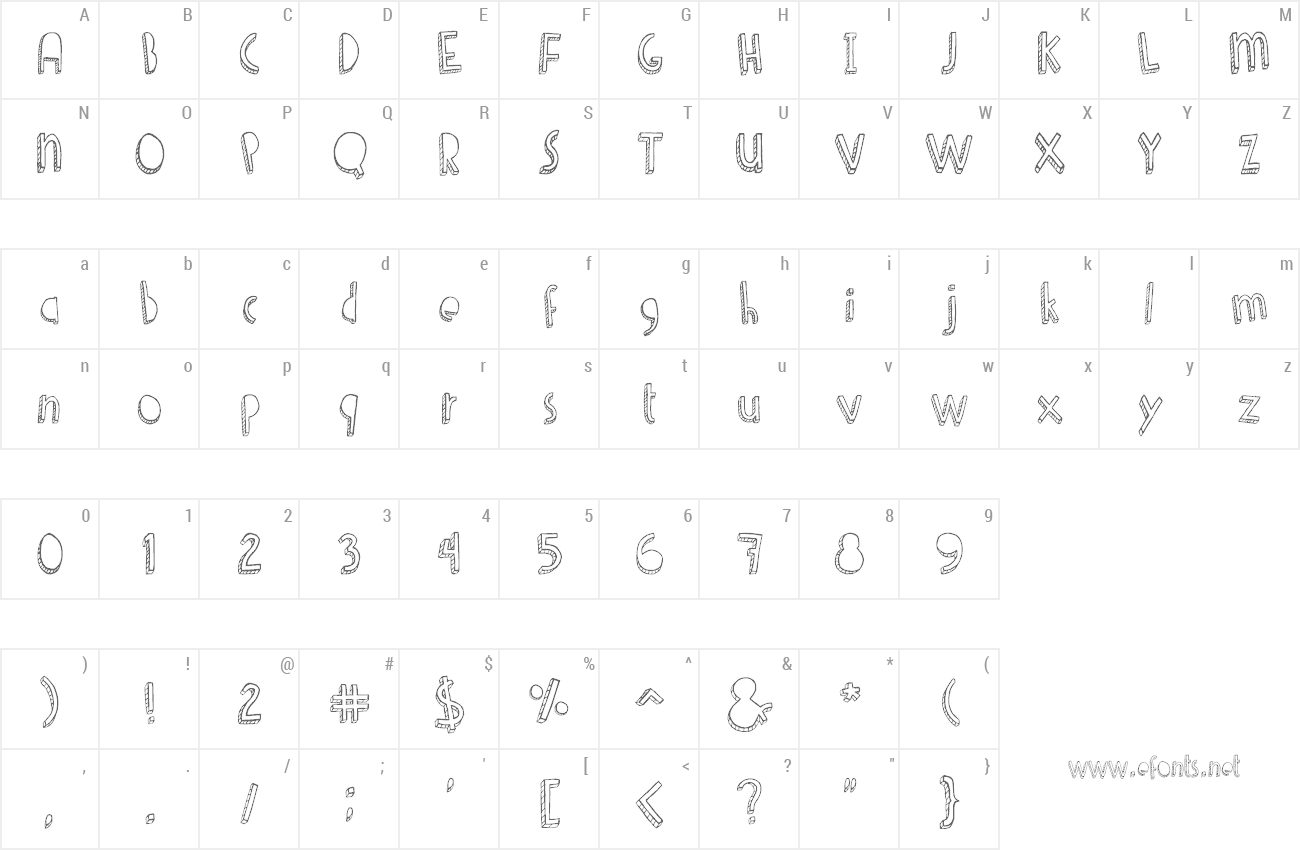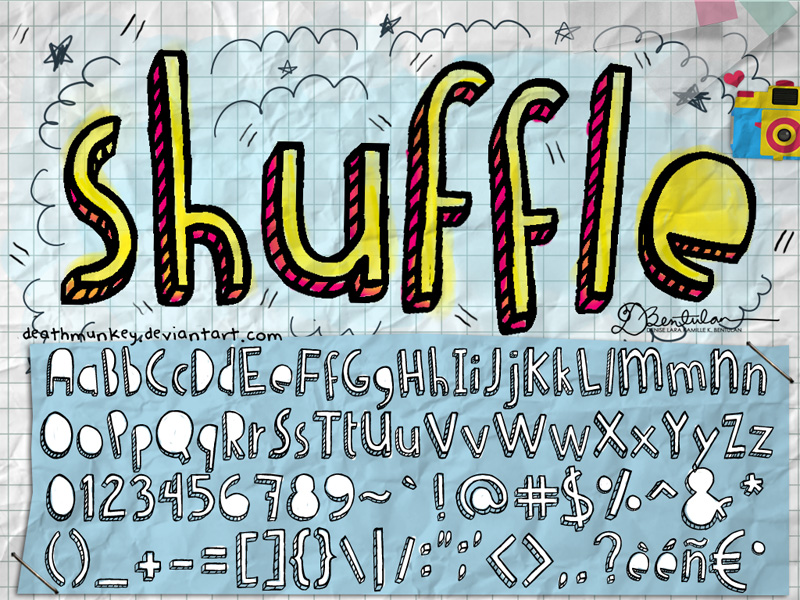
Preview and download Denne Shuffle Font. Created by Denise Bentulan in Fancy Cartoon styles with Free for personal use license.
the only font i did during my sem break T___________T so basically it's another handwritten 3D font with no holes (to save on ink!). spent 3 days making this, i wrote everything down using a tablet this time. added a few other useful characters as well (°, ñ, è, é, €, etc) also, included a .dfont file for those running a mac & having problems installing the usual .ttf (for some reason). the 1MB zip file includes both formats, a readme.txt file, and two .jpg files (a preview and one with my contact details). have fun! read the addt'l files included :) again, free for personal use only. for commercial use, contact me first :) |